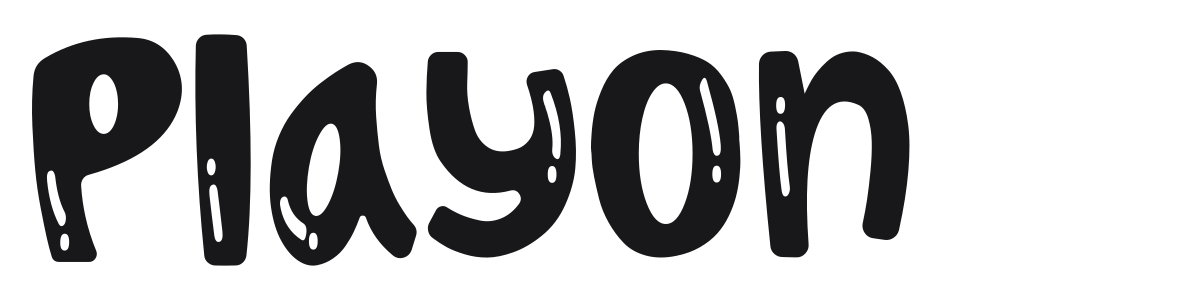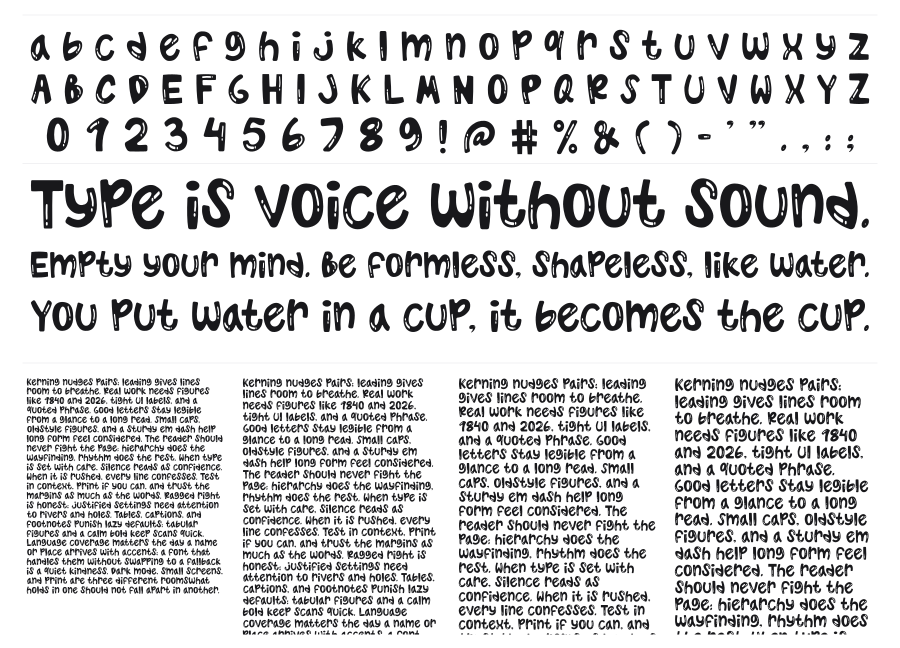
Playon
Playon is a bold bubble font with thick, rounded strokes and a cartoon hand-drawn energy. The irregular outlines and subtle interior highlights give each character an inflated, almost three-dimensional quality. It reads instantly as fun and informal, making it a natural choice for children's branding, packaging, and playful headline work.